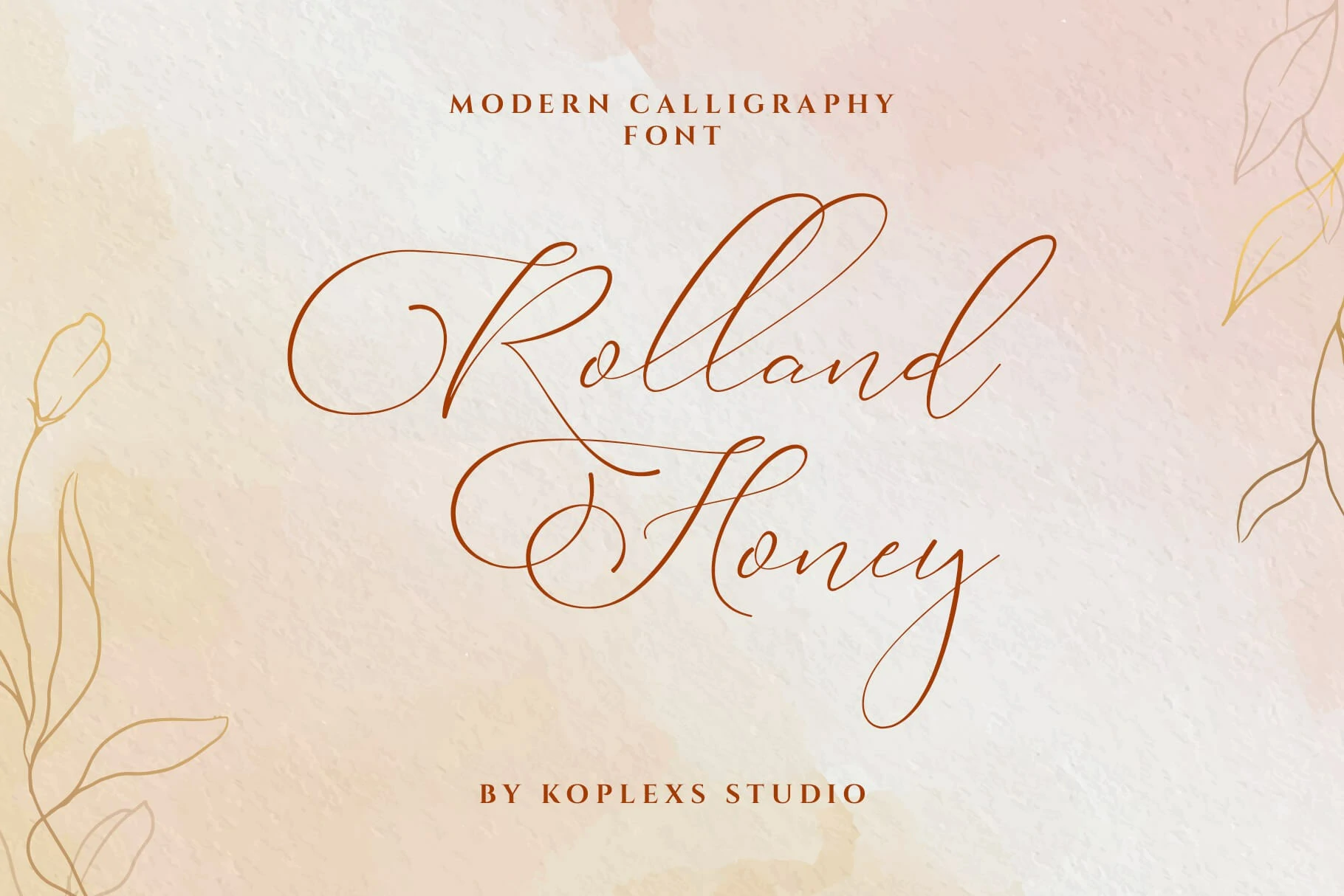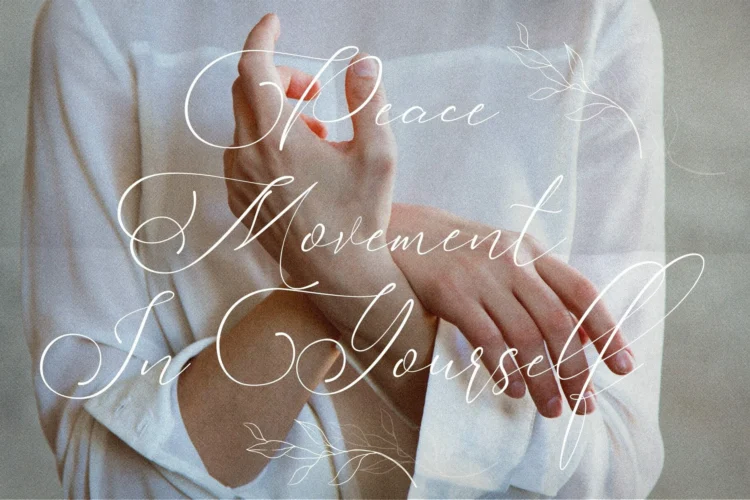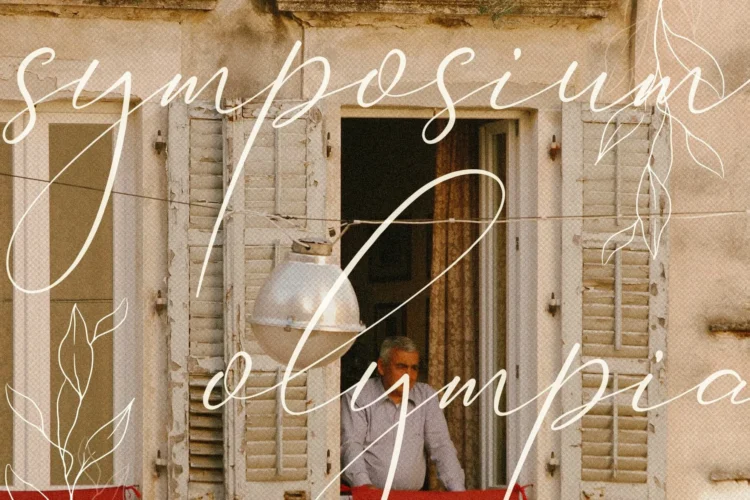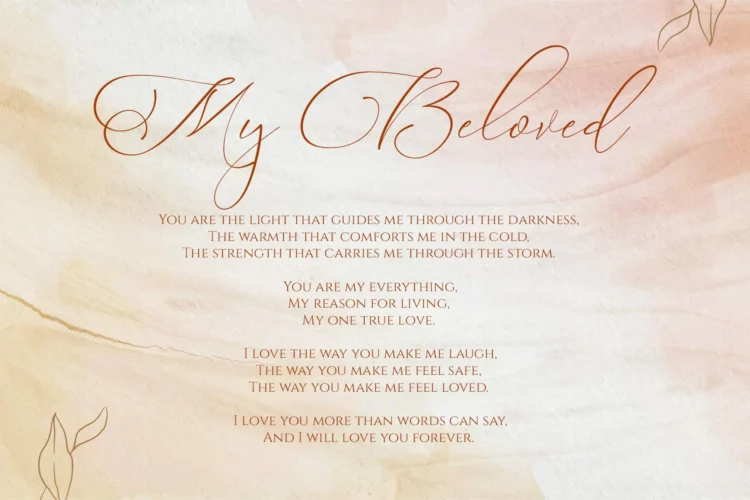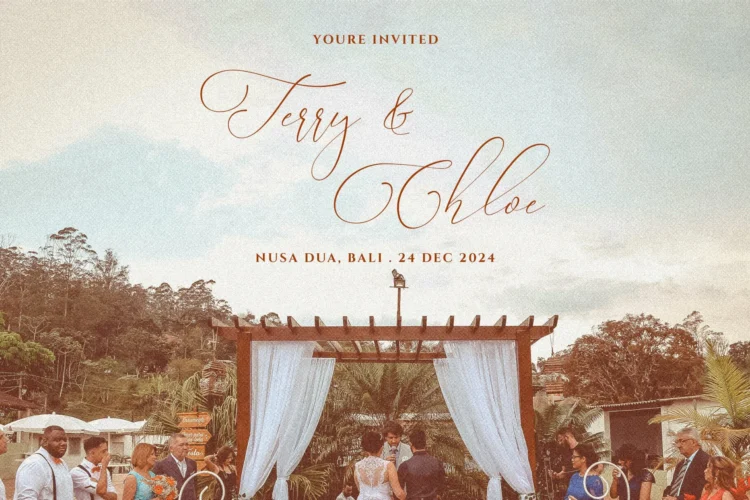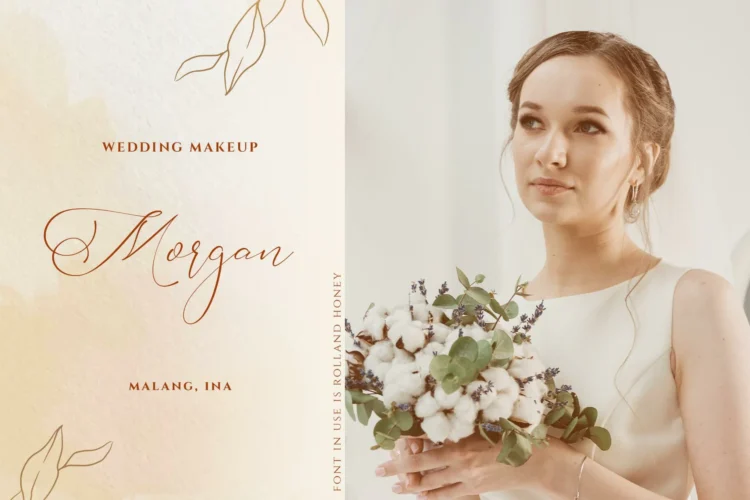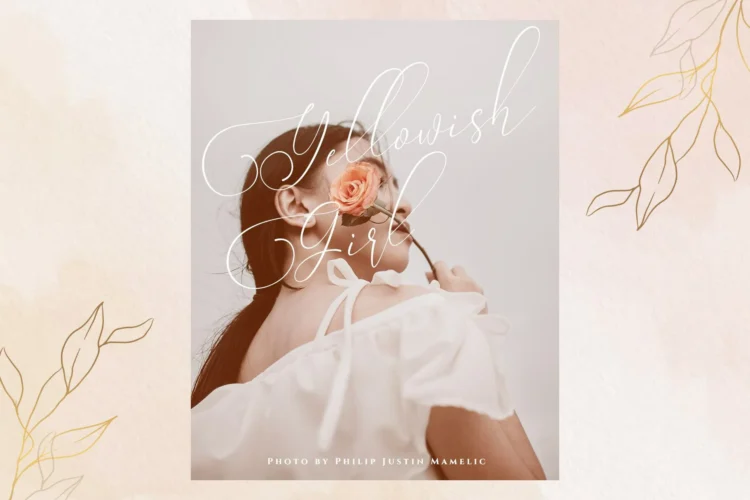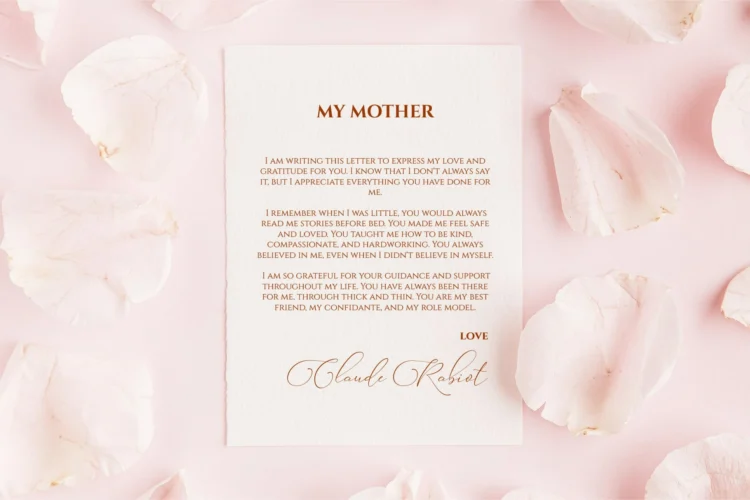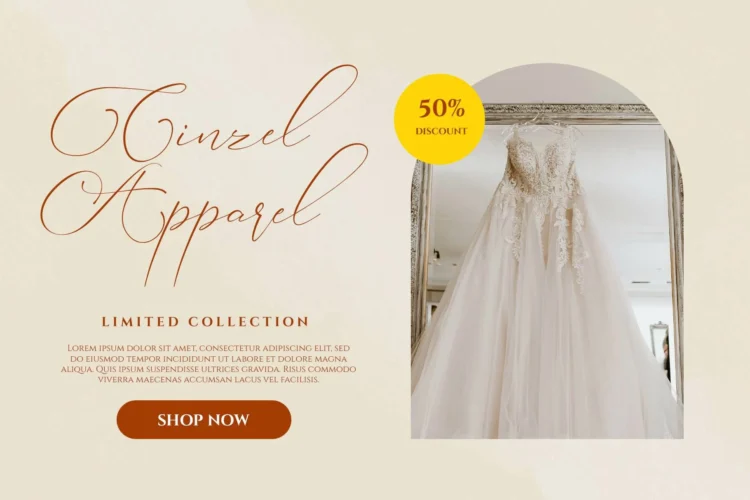
Rolland Honey Font
Rolland Honey Font – Elegant Modern Calligraphy Script Font for Wedding & Branding Design
Rolland Honey Font is a modern calligraphy font designed to capture timeless elegance and romantic sophistication. With delicate strokes and natural flow, this handwriting font blends classic charm with a contemporary twist perfect for creators who seek beauty and authenticity in every letter.
Crafted with passion, Rolland Honey is both a signature font and a cursive font that brings a handwritten touch to your projects. It’s a perfect choice for those looking to elevate designs with a soft, feminine, and refined aesthetic.
Rolland Honey Font is versatile and works beautifully for :
• Wedding Invitations & Save the Dates
• Branding Projects & Logo Design
• Cosmetic Product Packaging
• Fashion & Lifestyle Magazines
• Greeting Cards & Stationery
• Photography Watermarks
• Social Media Templates
• Luxury & Aesthetic Branding
If you love fonts that balance modern charm and classic elegance, Rolland Honey will be your new favorite. Its smooth curves, exquisite strokes, and emotional flow make it a luxury font suitable for high-end design, modern branding, and romantic creative projects.
This aesthetic font embodies grace, luxury, and warmth ideal for modern designers who want to express sophistication through typography.
Rolland Honey Font is a luxurious modern calligraphy script font with graceful handwriting and elegant curves. Perfect for wedding invitations, logos, cosmetics, branding, fashion, and aesthetic designs. This signature cursive font adds timeless sophistication and romantic charm to every project, ideal for designers seeking beauty, flow, and modern artistry in typography.